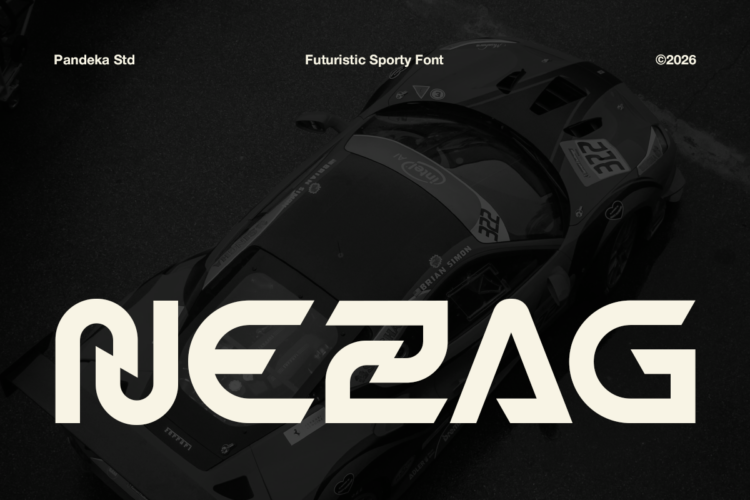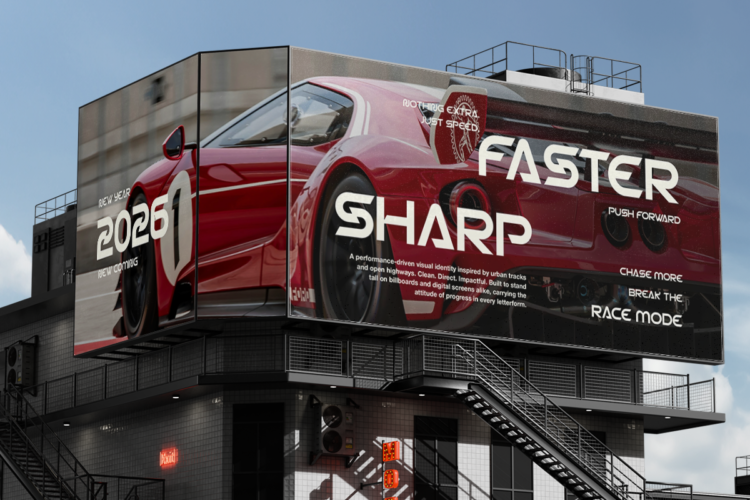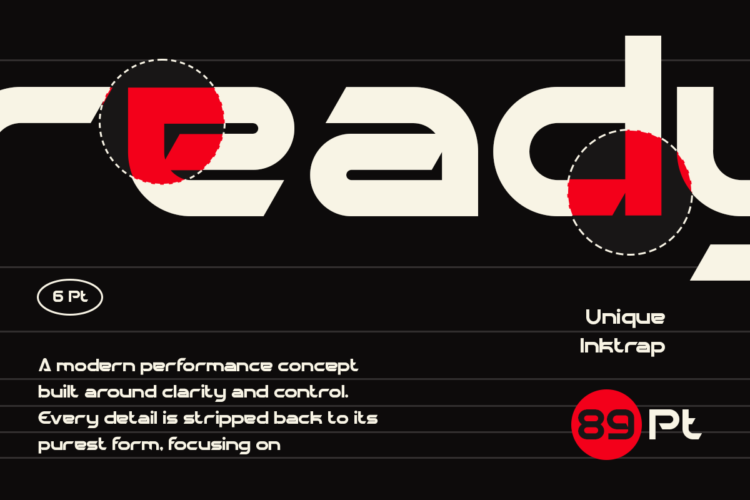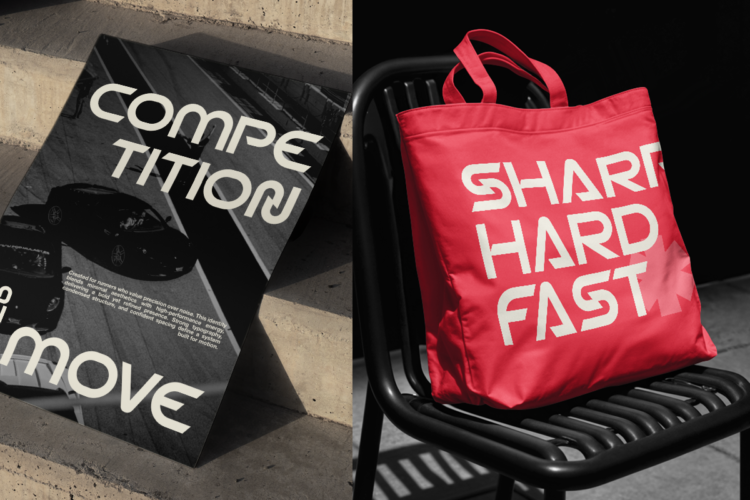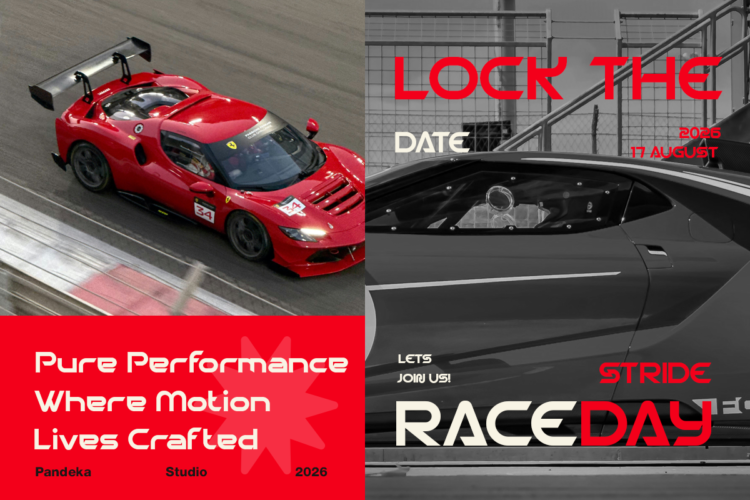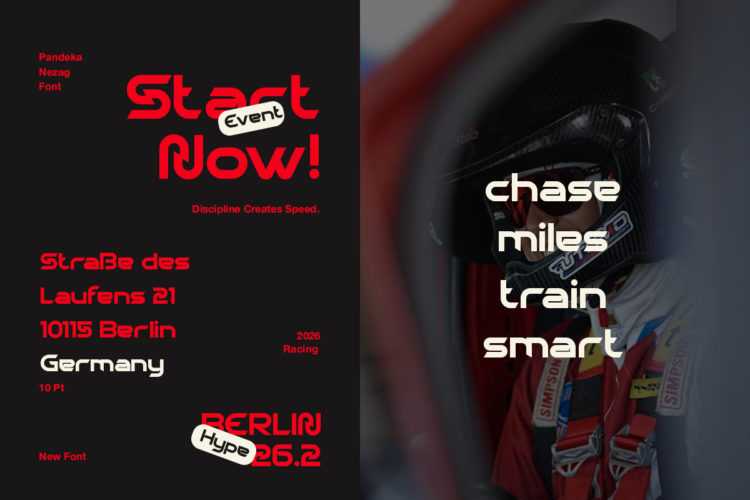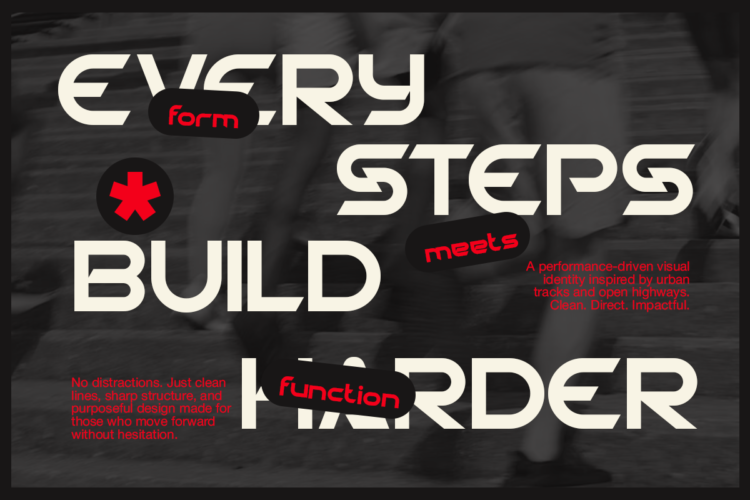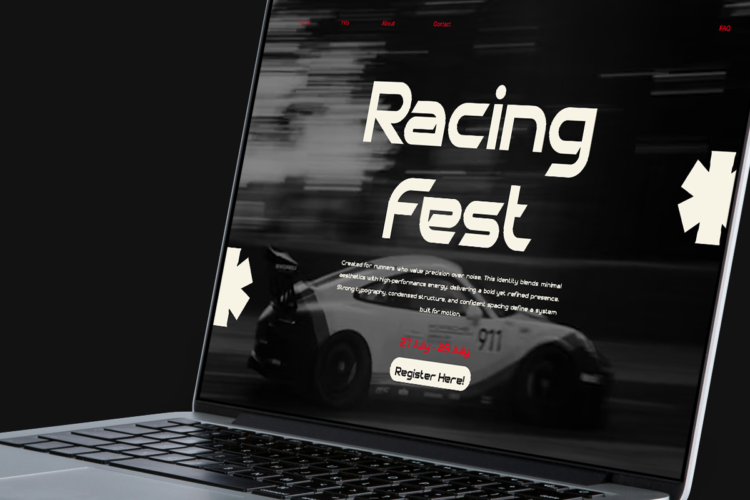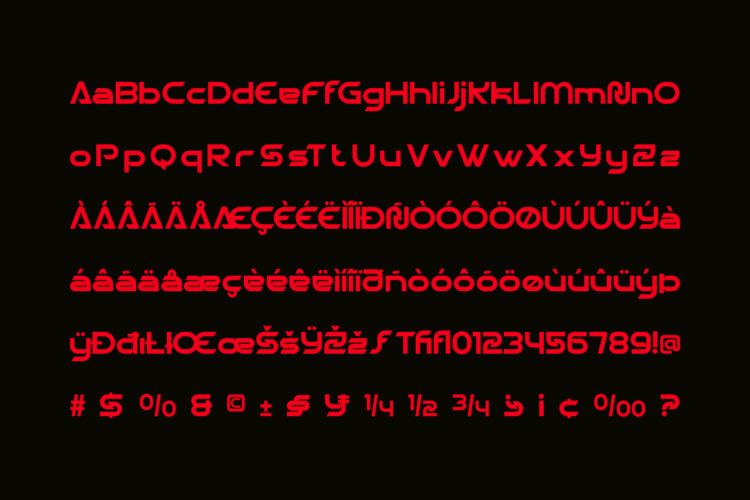
Nezag – Futuristic Sport Font
Nezag Regular
Nezag Slant
Nezag is a futuristic sport font designed with sharp geometric shapes, dynamic angles, and high-speed visual energy. Its modern letterforms create a powerful racing-inspired appearance, making it perfect for automotive branding, motorsport graphics, esports identities, technology campaigns, sport event promotions, posters, and contemporary display projects. The unique construction delivers a bold and aggressive character while maintaining strong readability across various design applications.
Available in 2 styles: Regular and Slant, Nezag offers flexibility for both clean futuristic layouts and fast-moving dynamic compositions. Equipped with multilingual support, this font is ideal for racing events, gaming content, vehicle wraps, branding systems, social media graphics, advertising materials, and futuristic visual designs that demand a strong performance-driven aesthetic.